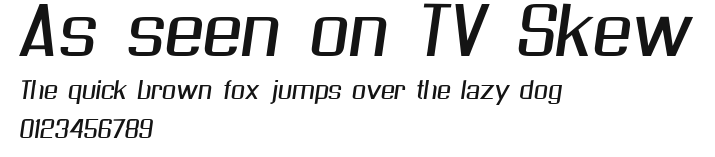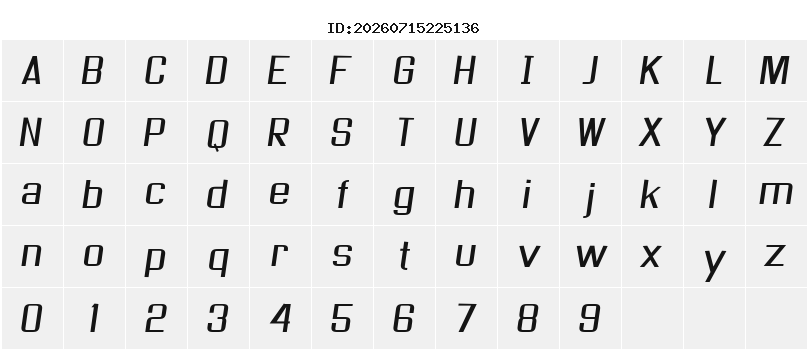
• Font Name: As seen on TV Skew
• Full Font Name: As seen on TV Skew
About As seen on TV Skew.ttf
As seen on TV Skew.ttf is a modern, elegant sans-serif font designed for ultimate readability and visual harmony. Perfect for branding, headlines, web design, and print materials.